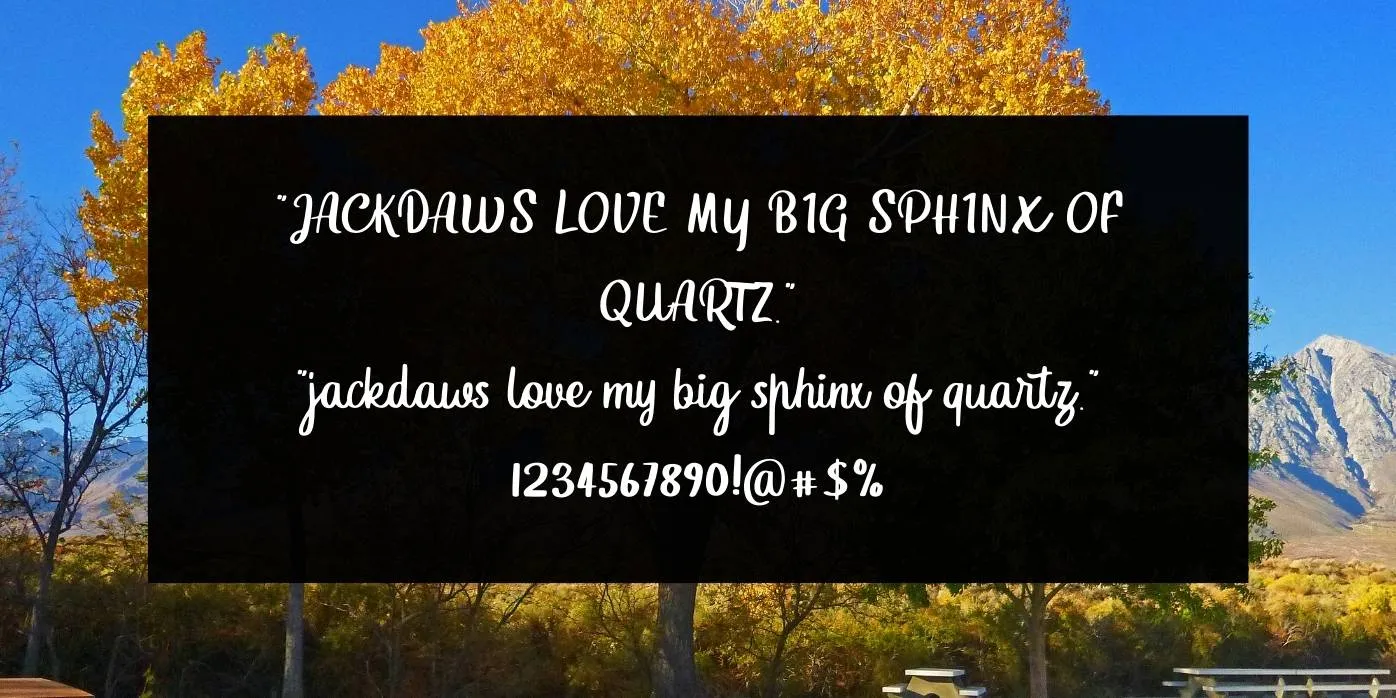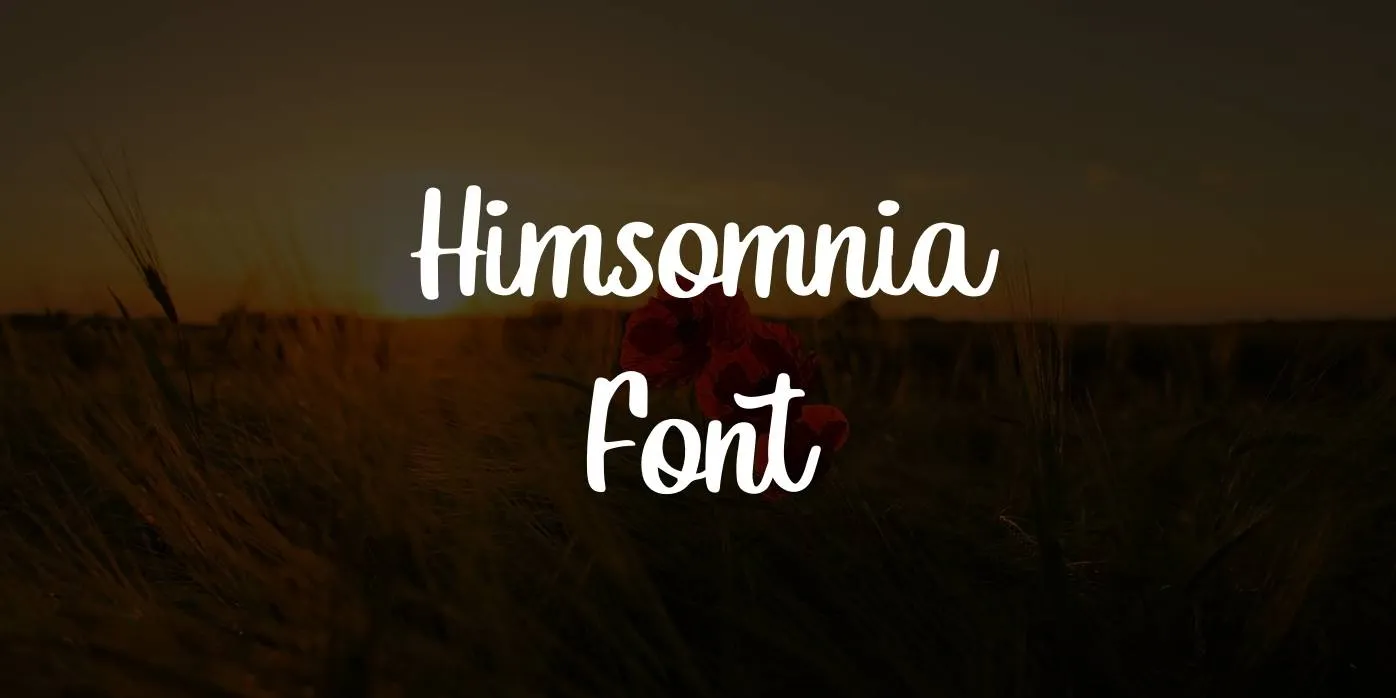
Himsomnia Font
Himsomnia Font is a script typeface created by Paul Renner in 1927. The font was created with simple shapes and curves, which makes it easy to read and perfect for headlines and titles. Himsomnia Font has been used by many famous brands. Renner was a German typeface designer who is best known for creating the Nouradilla typeface.
Volkswagen used this font in its logo from 1930 to 2012. In 2012, they updated their logo and switched to a new typeface called VW marque. The typeface family can also work well with windsong font and you will not find any difference between these two typefaces while pairing and applying them in a design. This font is not available on Google Store but you can get similar ones there.